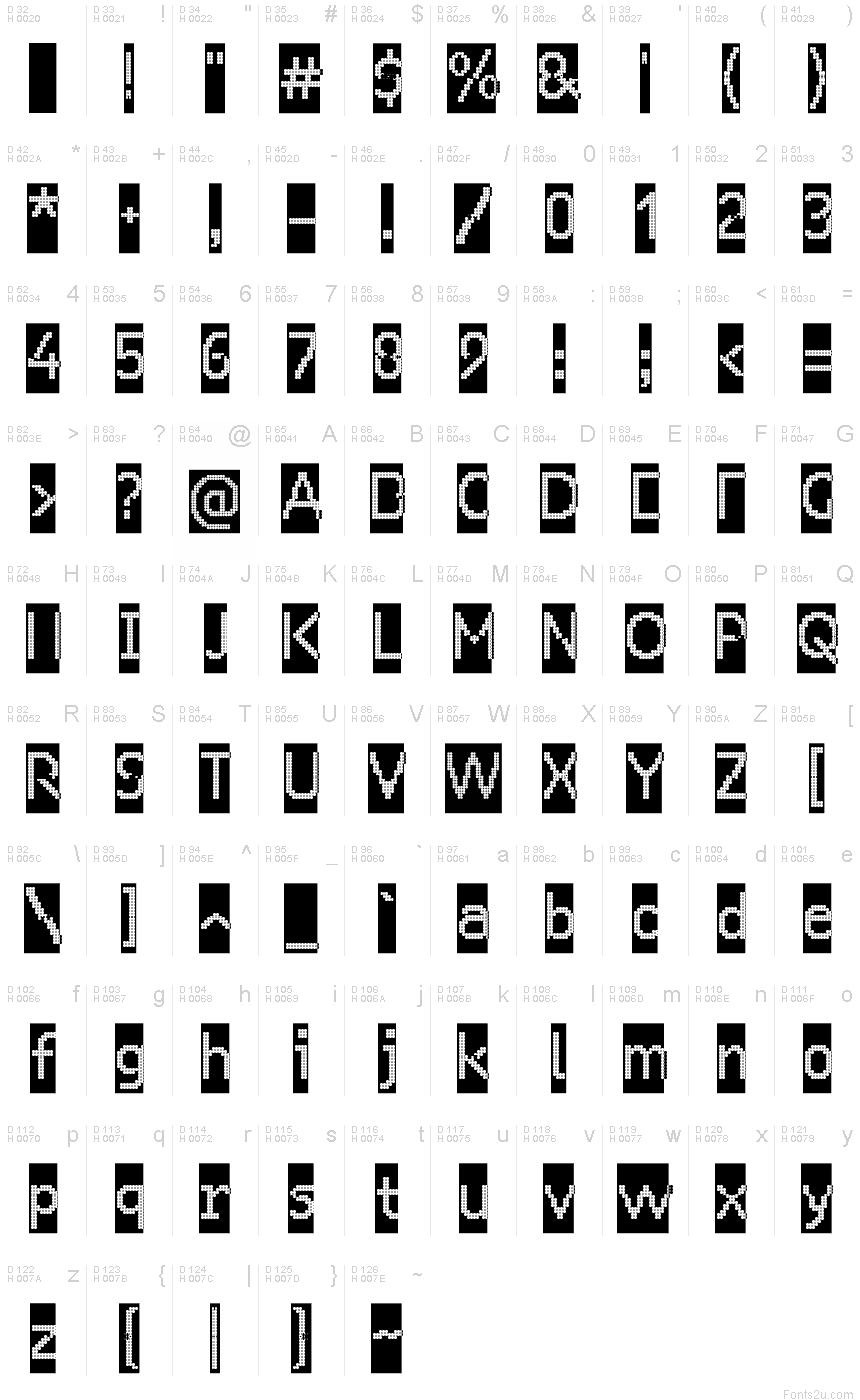
24 LED Modul by Peter Wiegel is a free LED-display font with the blunt glow of old scoreboards and sign panels. The letters are built from tight rows of round modules, so every curve breaks into a stepped dotted path that feels electronic, mechanical, and a little retro.
It fits naturally in poster titles, event flyers, music graphics, game screens, and tech-themed branding where that gridded light pattern can do the talking. Used as a free font for short headlines, title cards, labels, or interface callouts, it brings a clear hardware flavor that suits anything meant to feel broadcast, counted, or switched on.